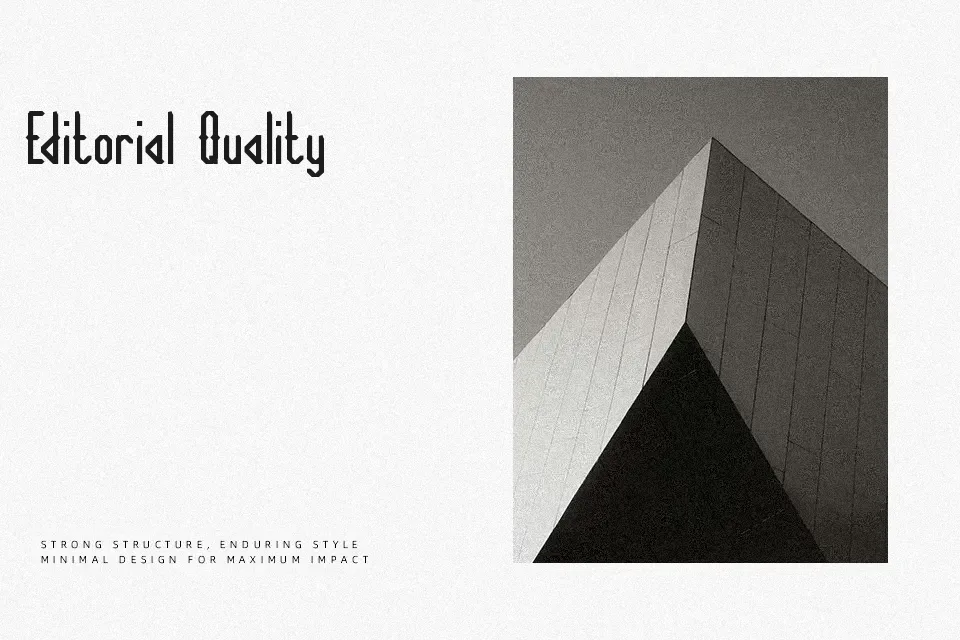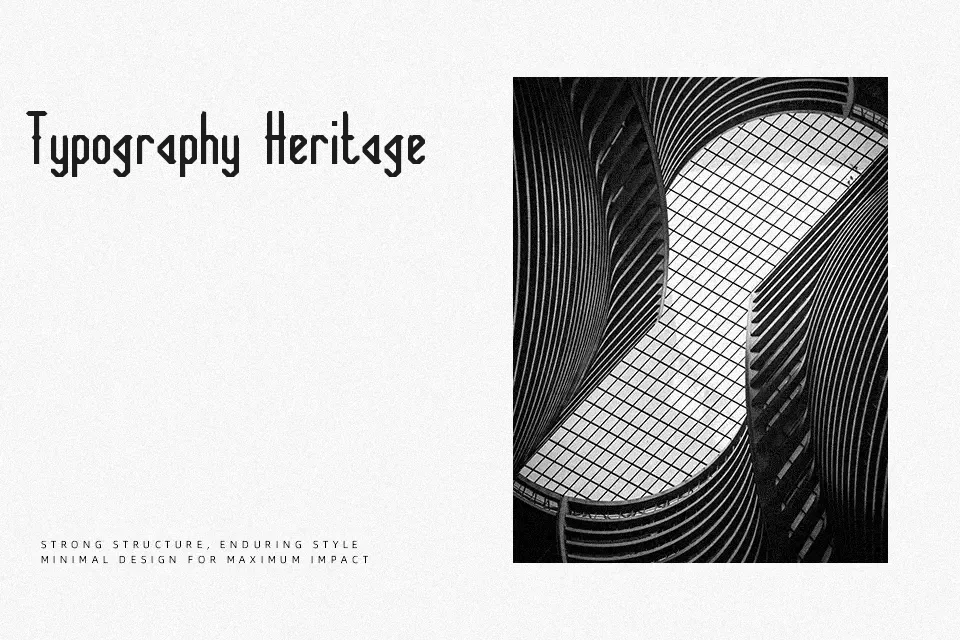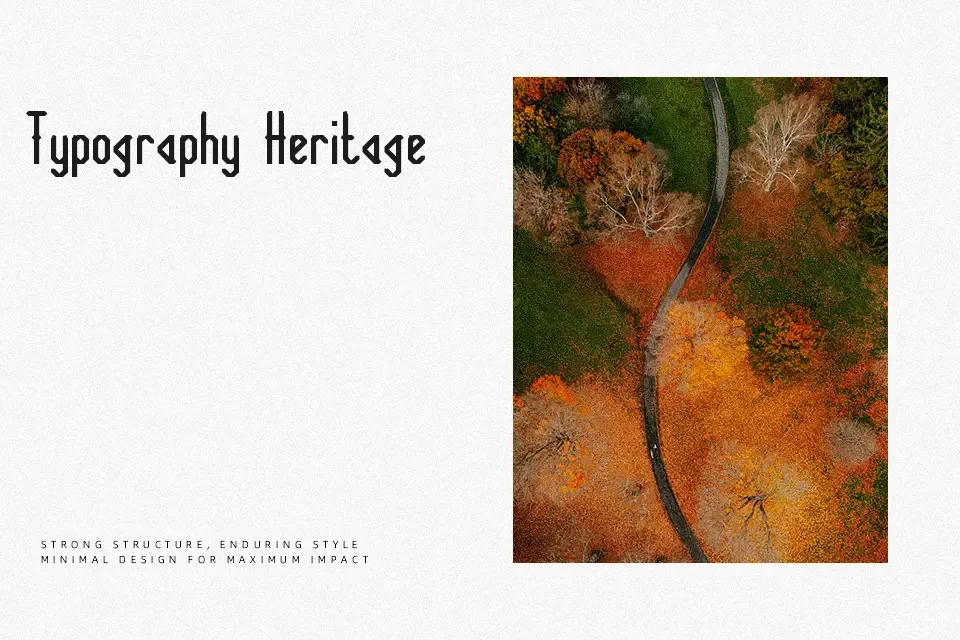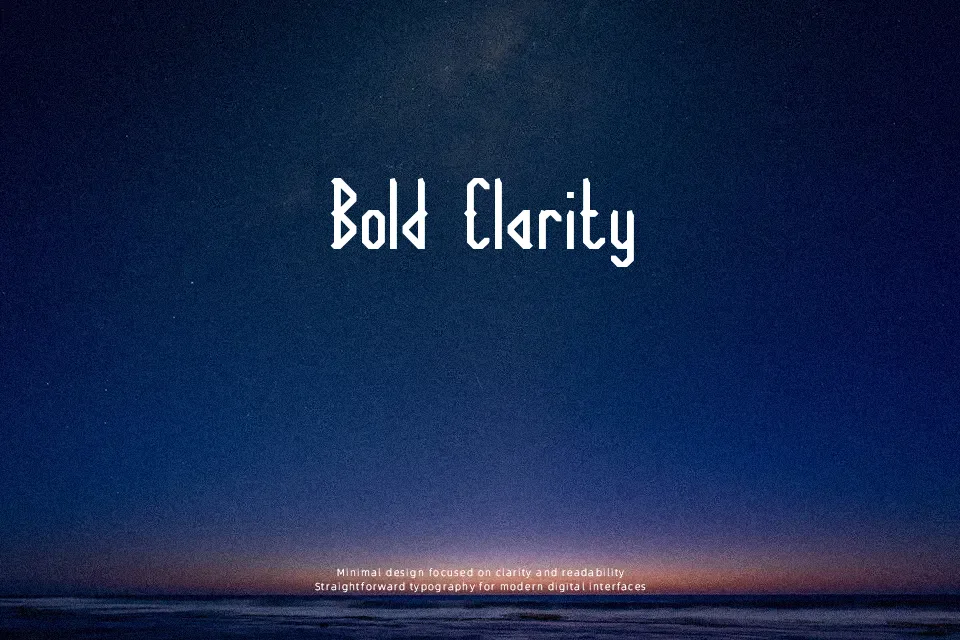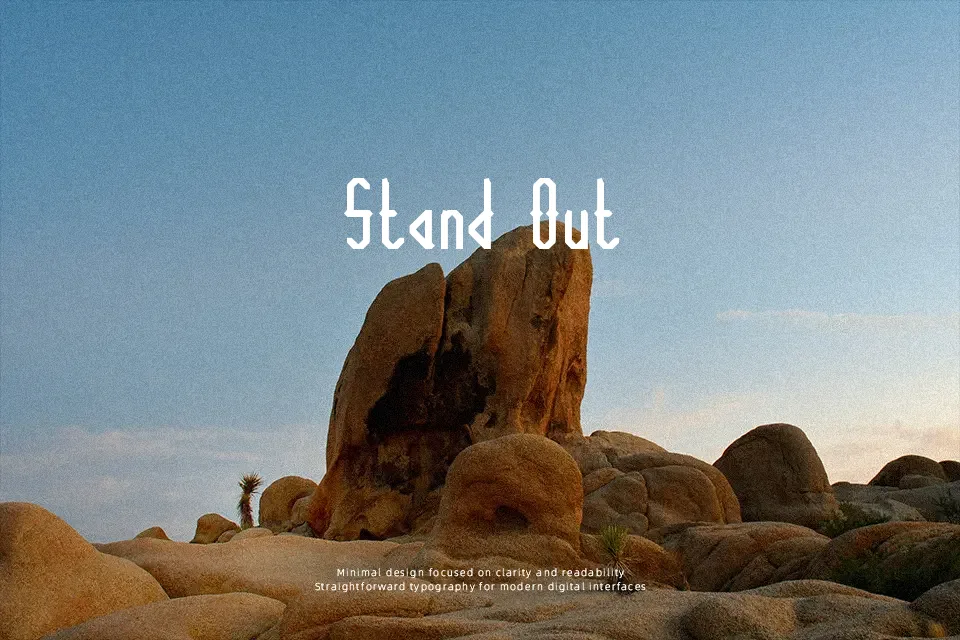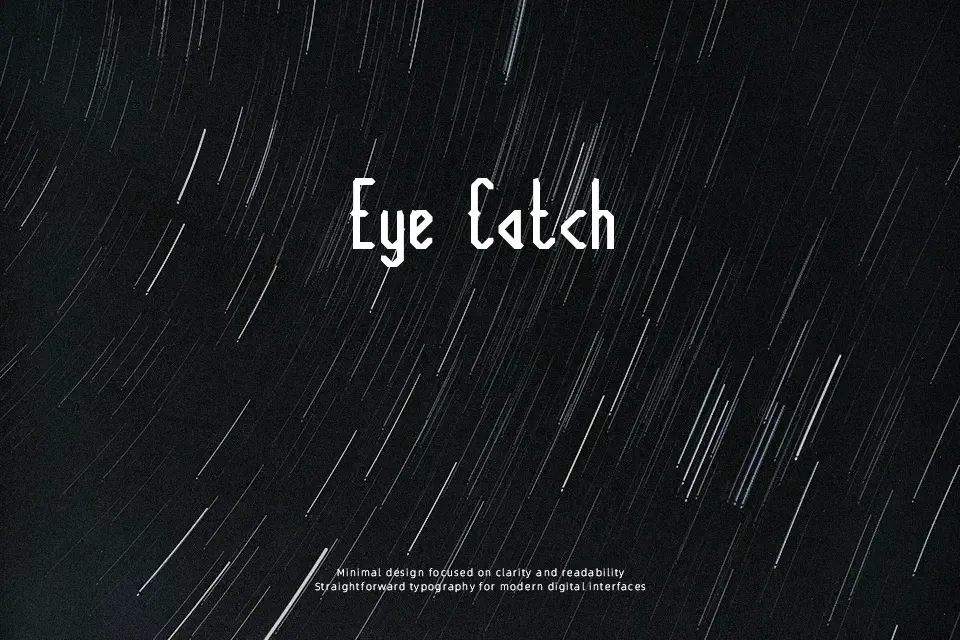
The Innocent Army Font
The Innocent Army Font commands visual attention through irregular display silhouettes, varied stroke weights, and distinctive decorative contours that give each character a quirky, non-traditional structure. Character spacing is relatively compact, creating tight headline lockups where large display settings preserve the personality of individual glyphs. However, the unconventional letterforms and inconsistent counters noticeably compromise legibility when set in smaller sizes. The typeface performs effectively in short, punchy titles, but extended body text quickly tires the reader and loses clarity.
music merchandise graphics,creative poster headlines,alternative apparel prints
long paragraph text,mobile user interfaces,dense editorial layouts
Perfect for headline, music, and poster, with a artistic and decorative style.